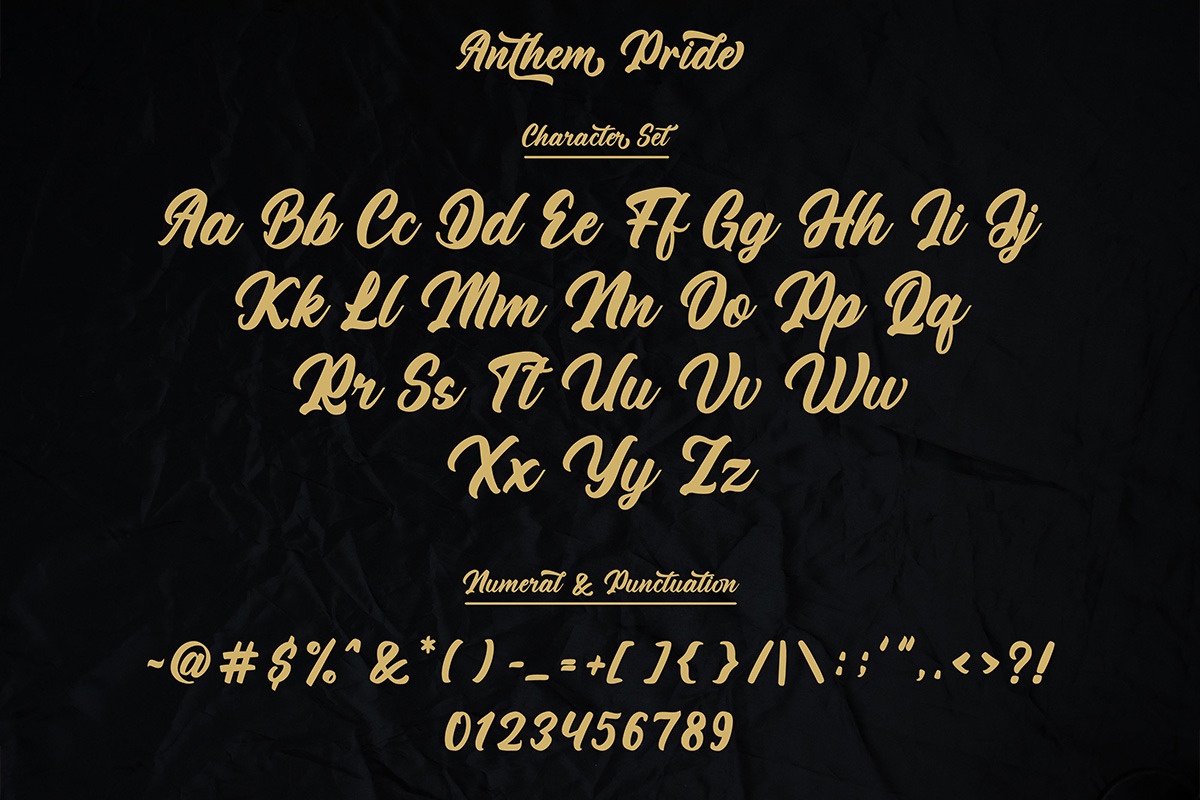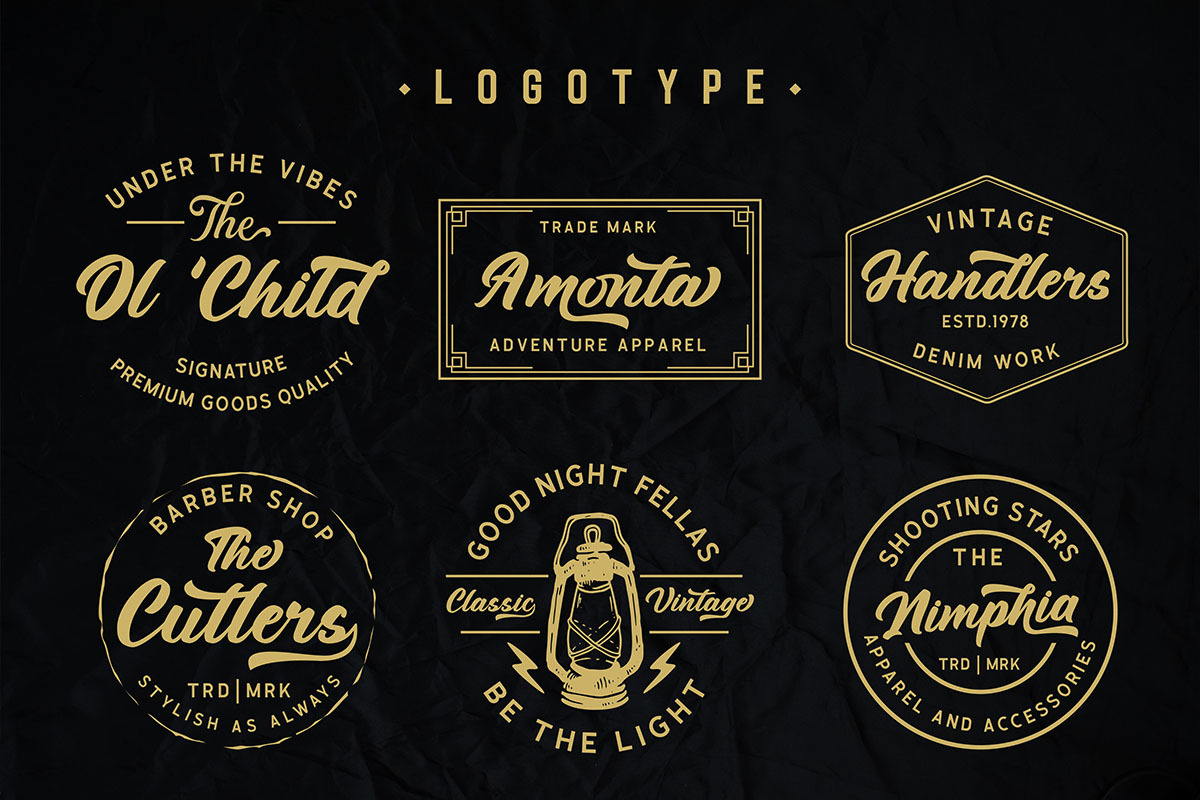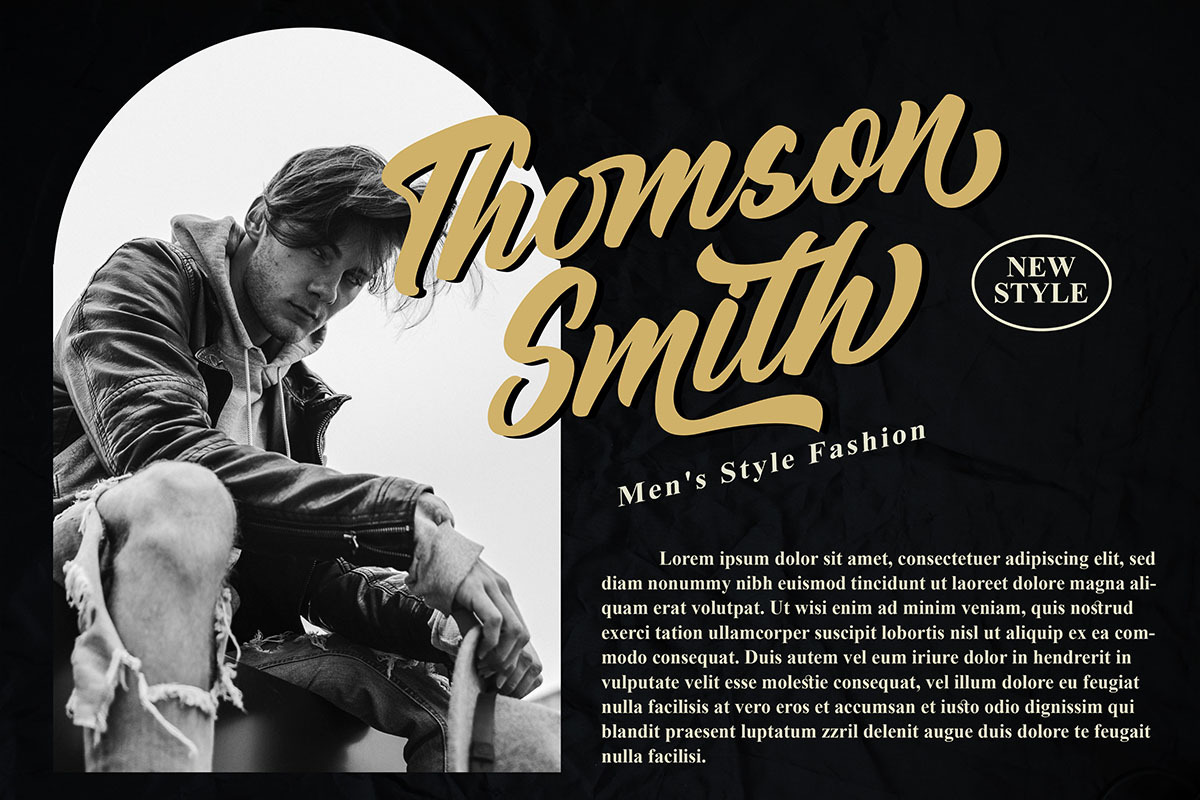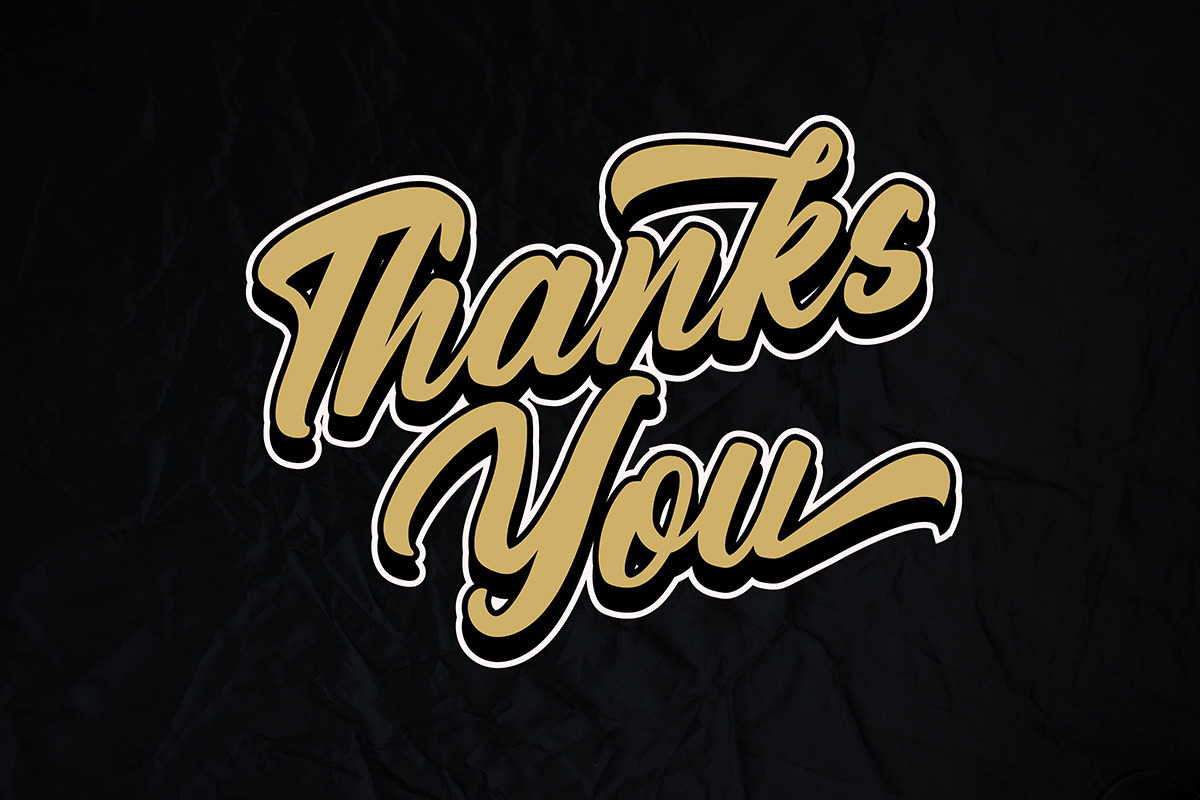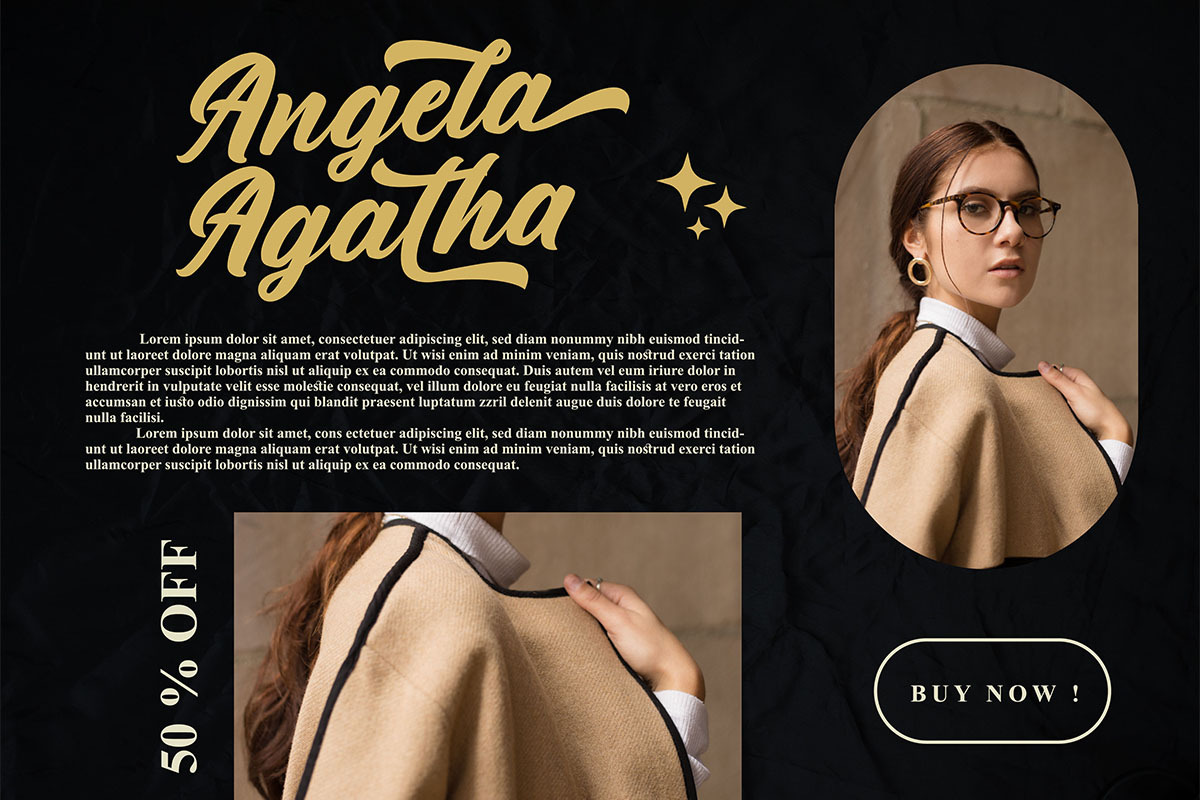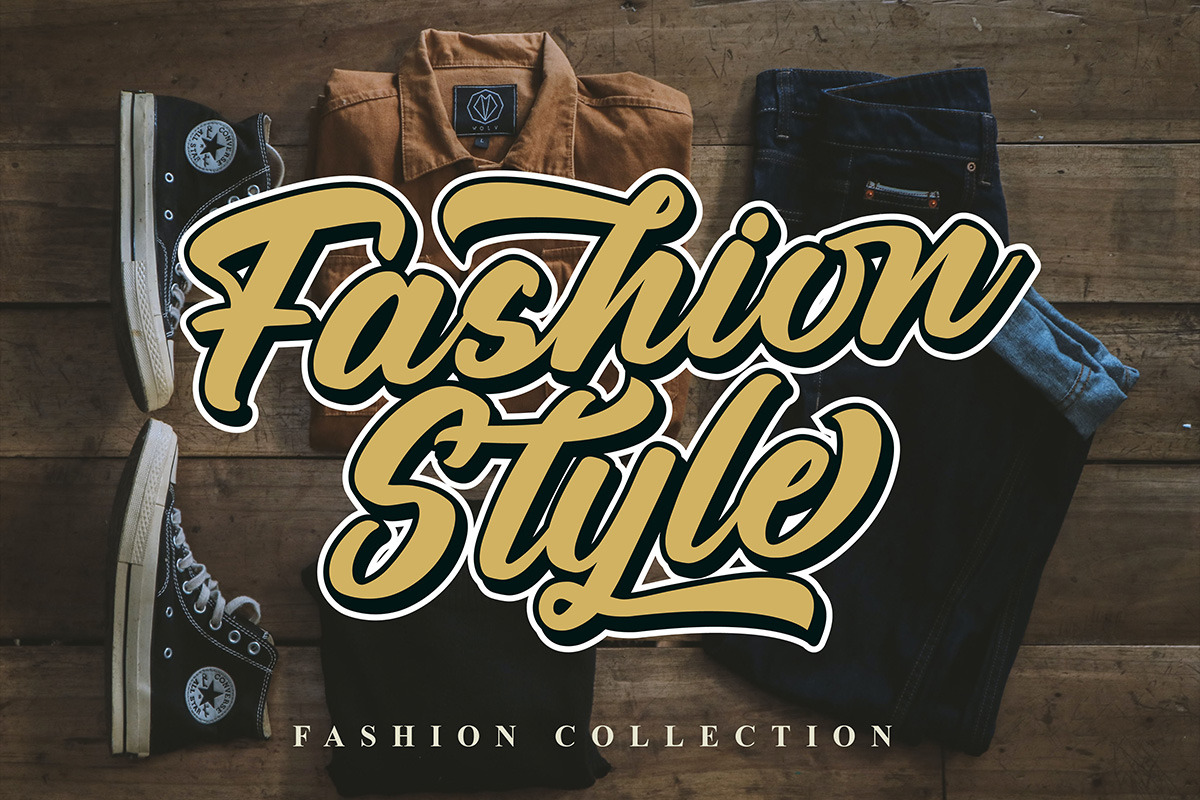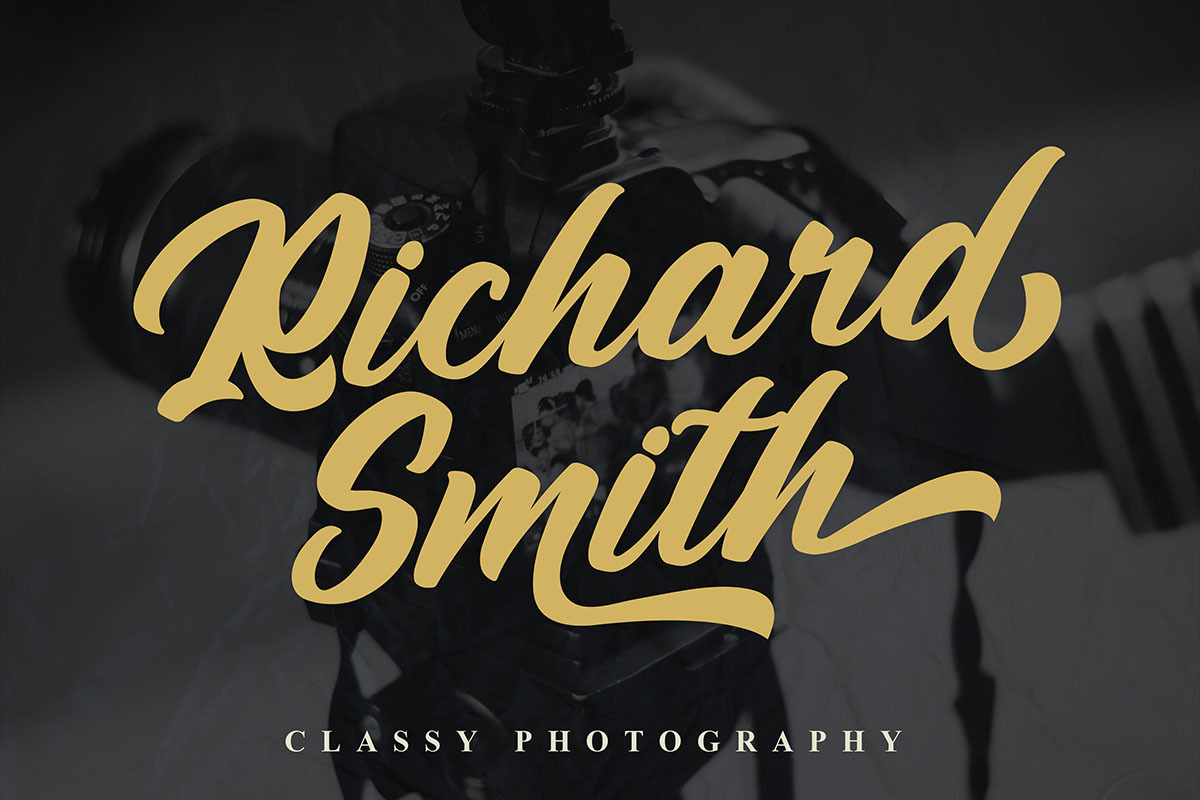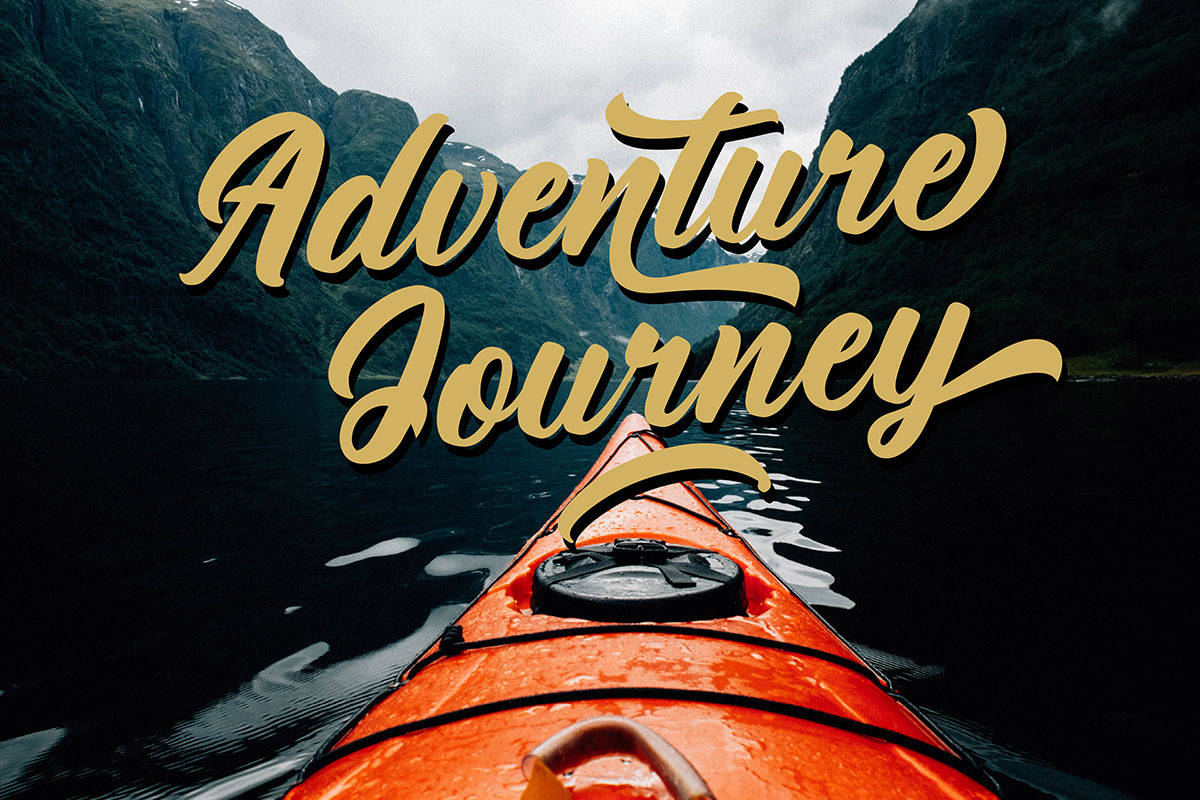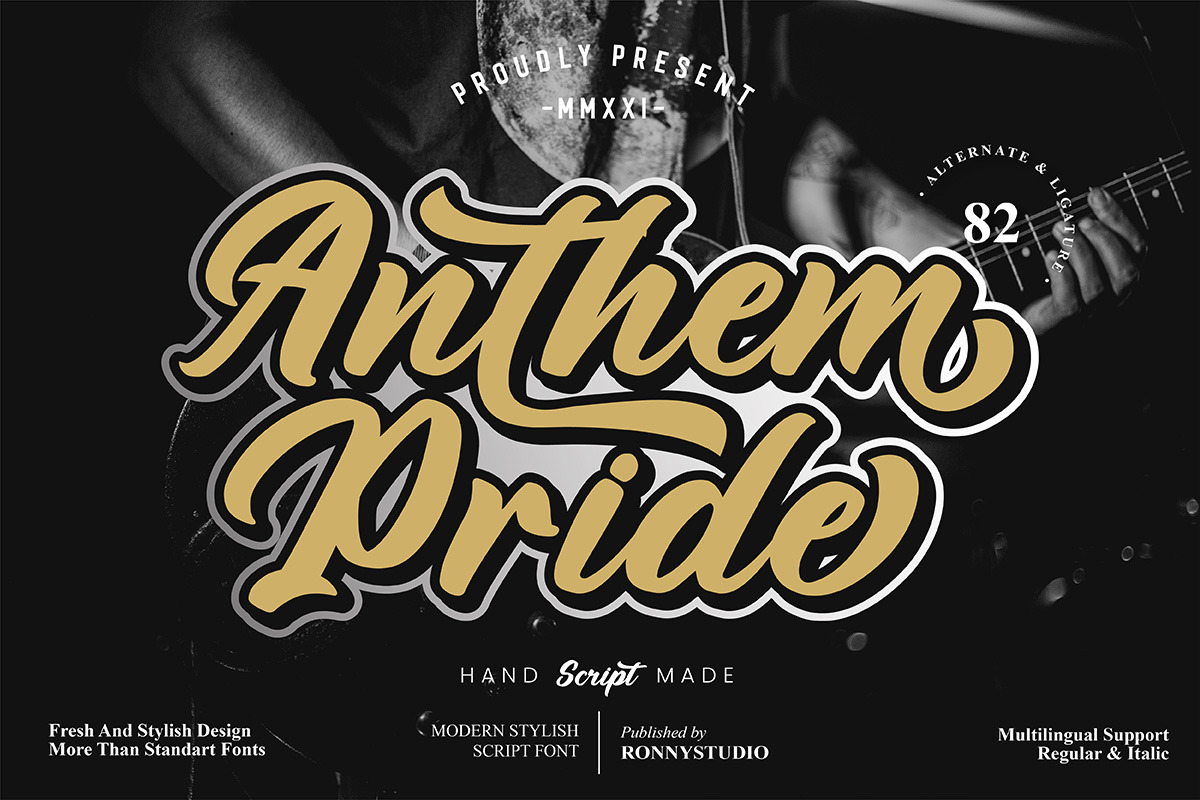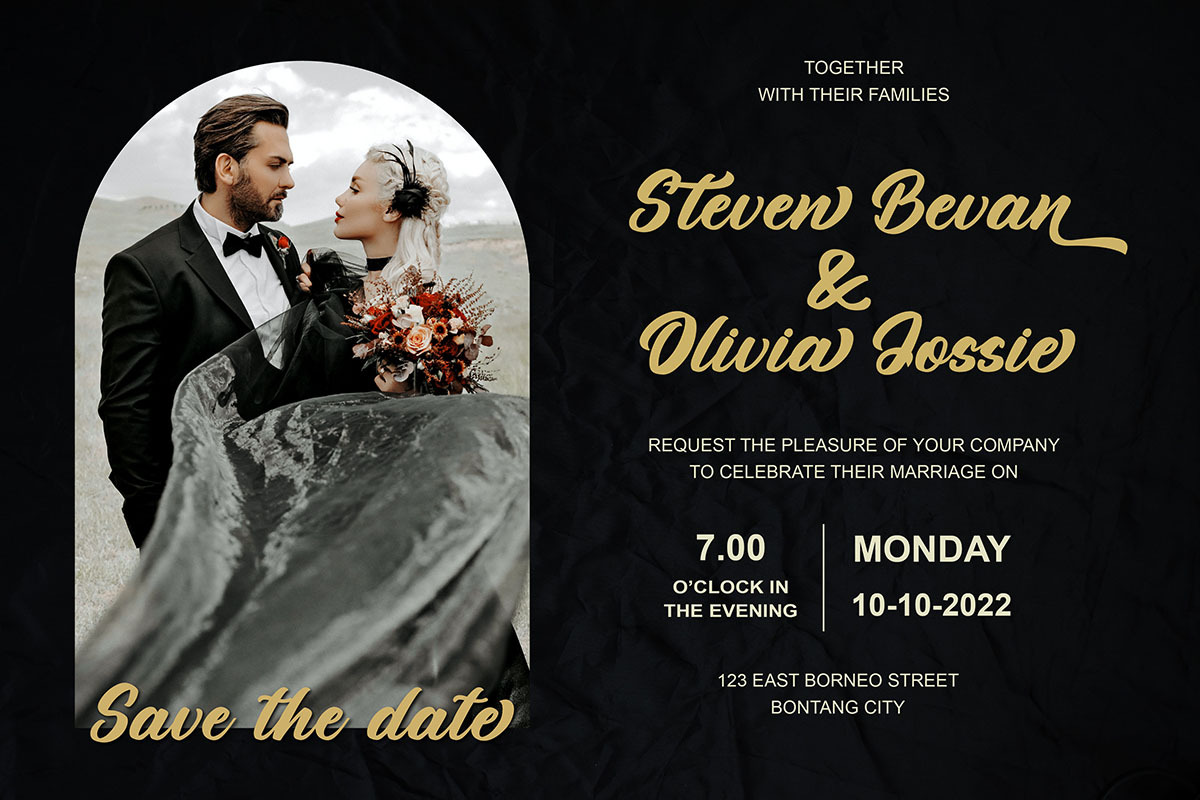
Anthem Pride Modern Script Font
Anthem Pride is an enchanting handwritten font. This versatile script font has a wide spectrum of applications ranging from greeting cards to headlines. Anthem Pride is PUA encoded which means you can access all of the glyphs and swashes with ease! It is suitable for branding, business cards, christmas cards, branding, logos, product packaging, wedding invitations, decorations, t-shirts, poster labels, etc.